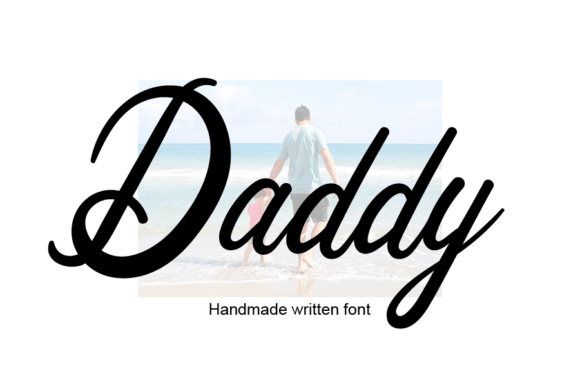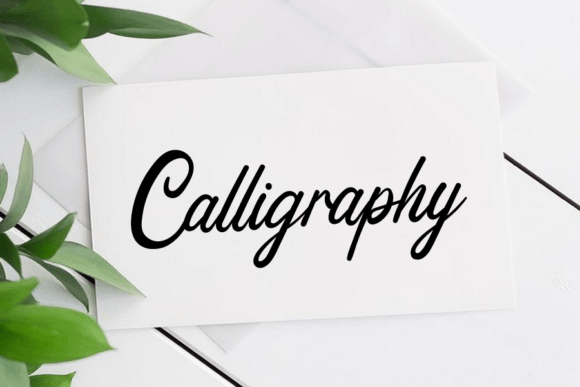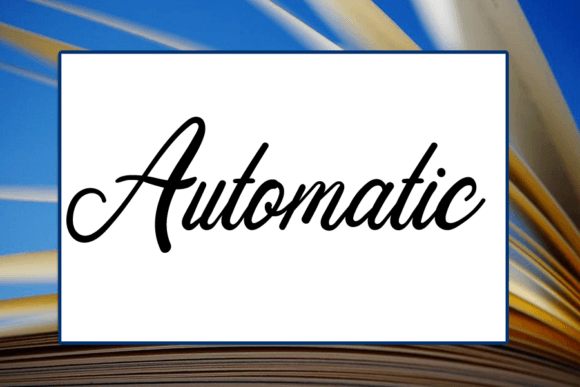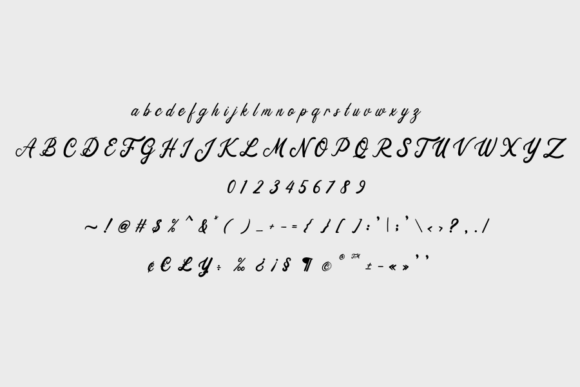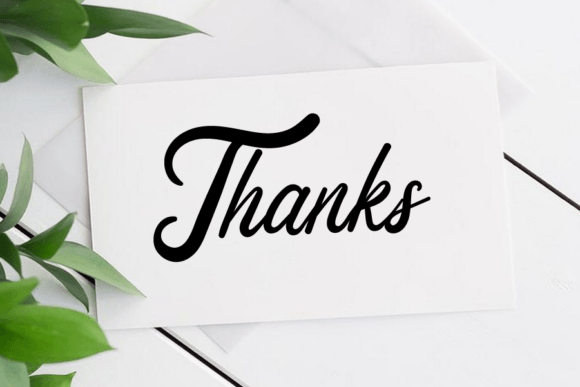
Daddy Font
About Daddy Font
“Daddy” is a contemporary, stylish, and gracefully flowing handwritten script font designed to add a fresh and modern touch to your creative projects. With its well-balanced and beautiful characters, this font is a versatile choice that can enhance a wide range of design concepts.
The appeal of “Daddy” lies in its ability to convey a sense of modernity and style. The script font creates a dynamic and visually engaging aesthetic that can elevate various design elements, making it suitable for a multitude of applications.
One of the standout features of “Daddy” is its versatility. It seamlessly adapts to different design themes and moods, making it a valuable asset for your creative endeavors. Whether you’re working on branding, logos, invitations, headlines, posters, or any project that requires a fresh and stylish look, “Daddy” is a font that can breathe life into your designs.
When you incorporate “Daddy” into your projects, you can expect your creations to exude a sense of contemporary elegance. This font has the power to make your designs come alive, thanks to its flowing and well-crafted characters that add a touch of sophistication to your work.
In summary, “Daddy” is not just a font; it’s a design asset that can enhance your creative projects with its fresh and modern appeal. Its versatility and flowing script style make it a valuable addition to your design toolkit. Feel confident in using “Daddy” to elevate any creation, as it has the potential to bring a sense of modernity and style to your designs!